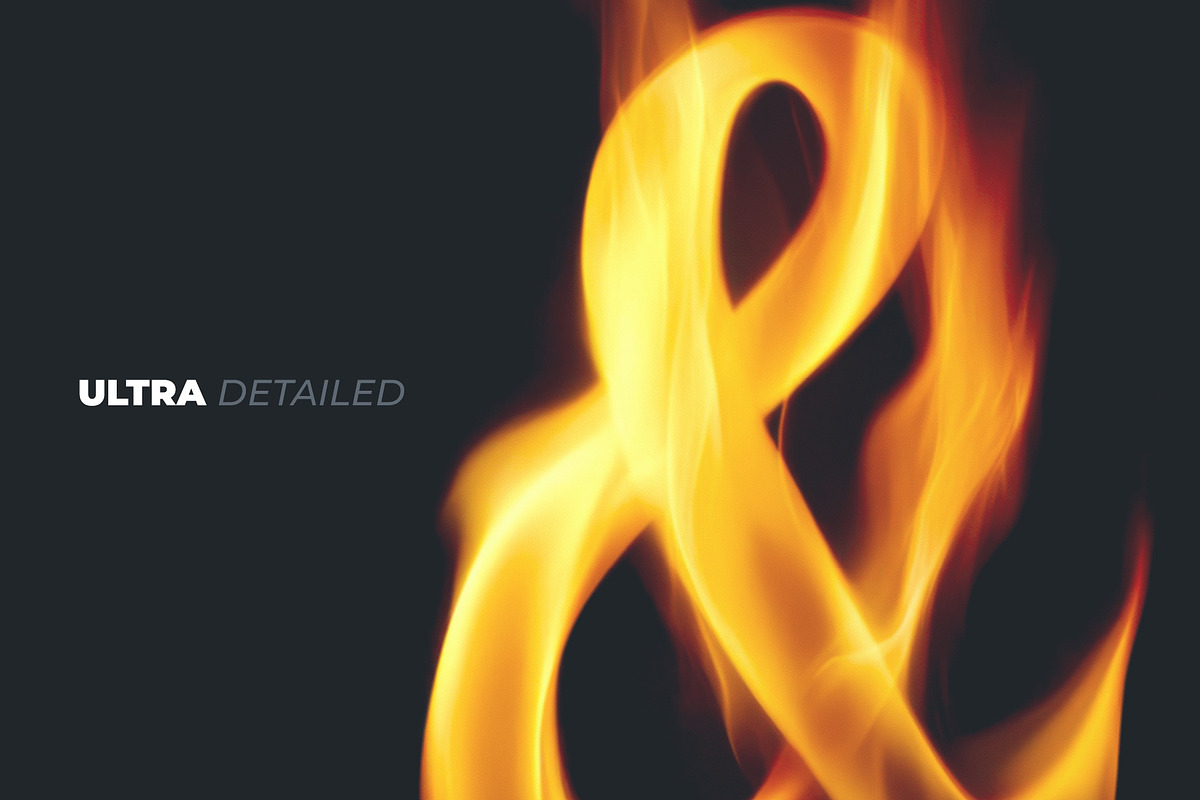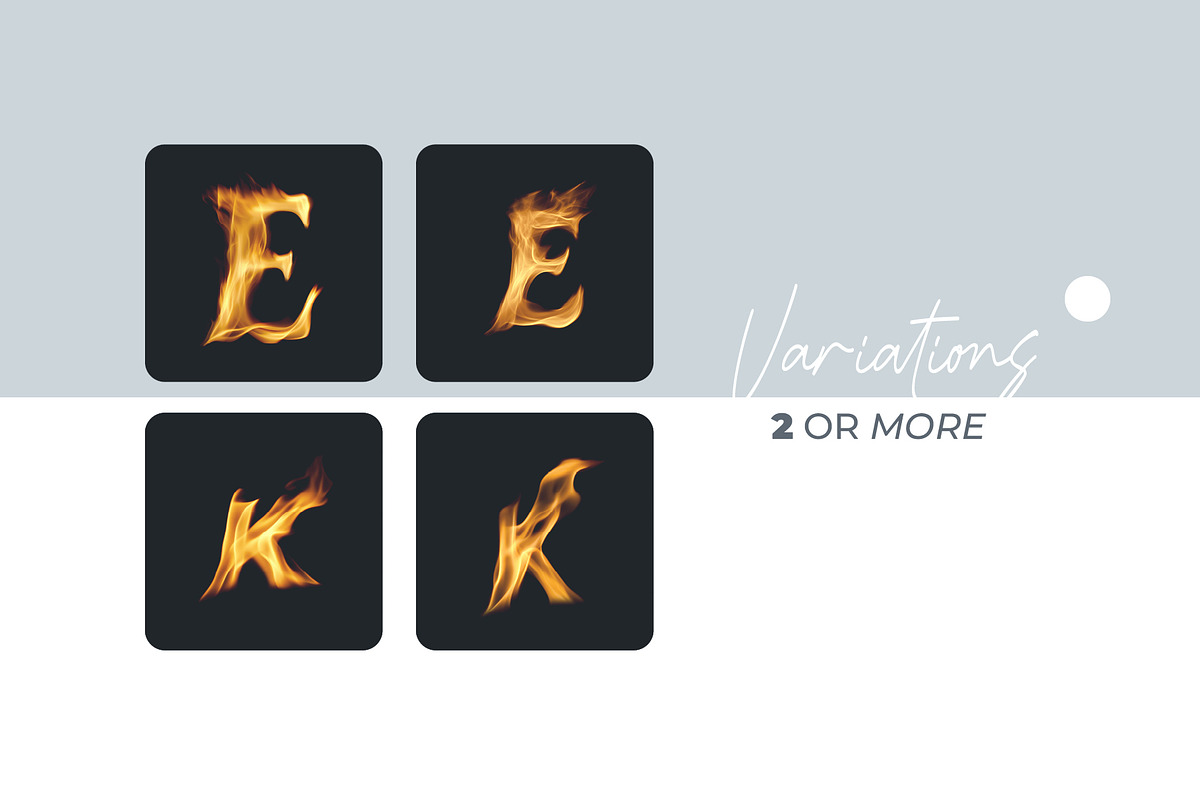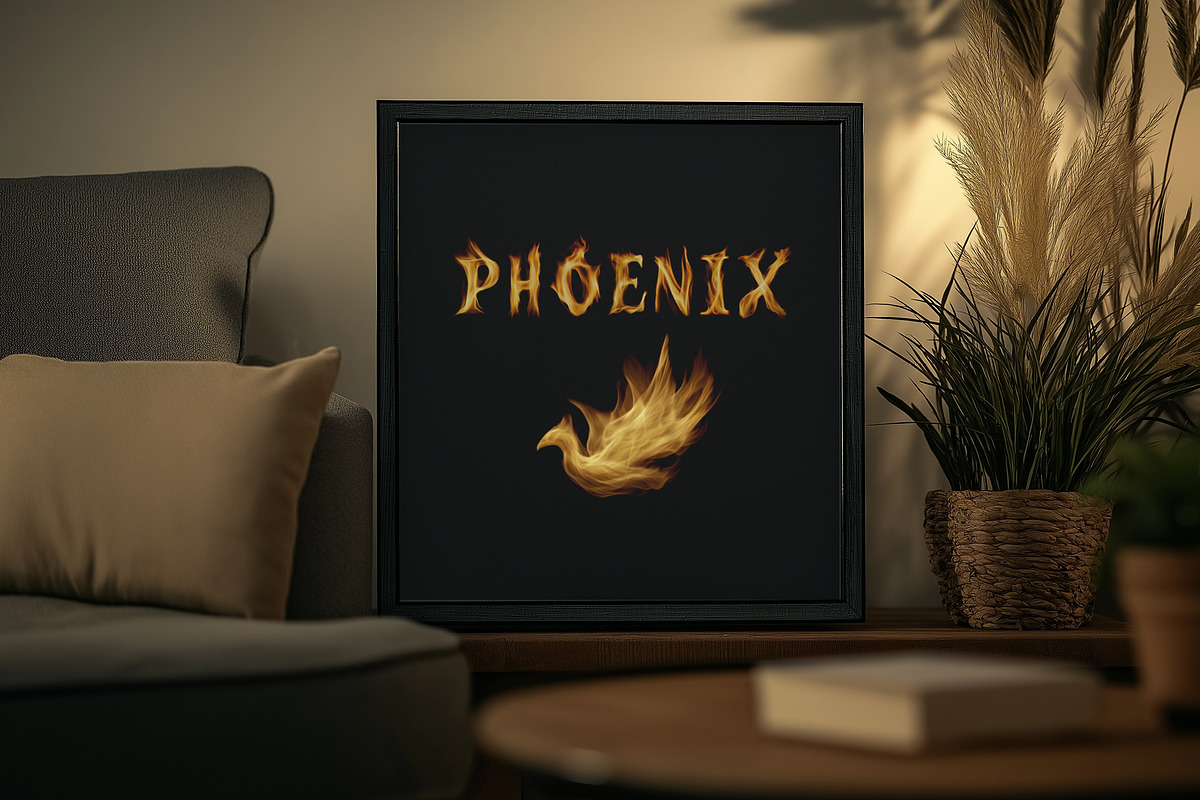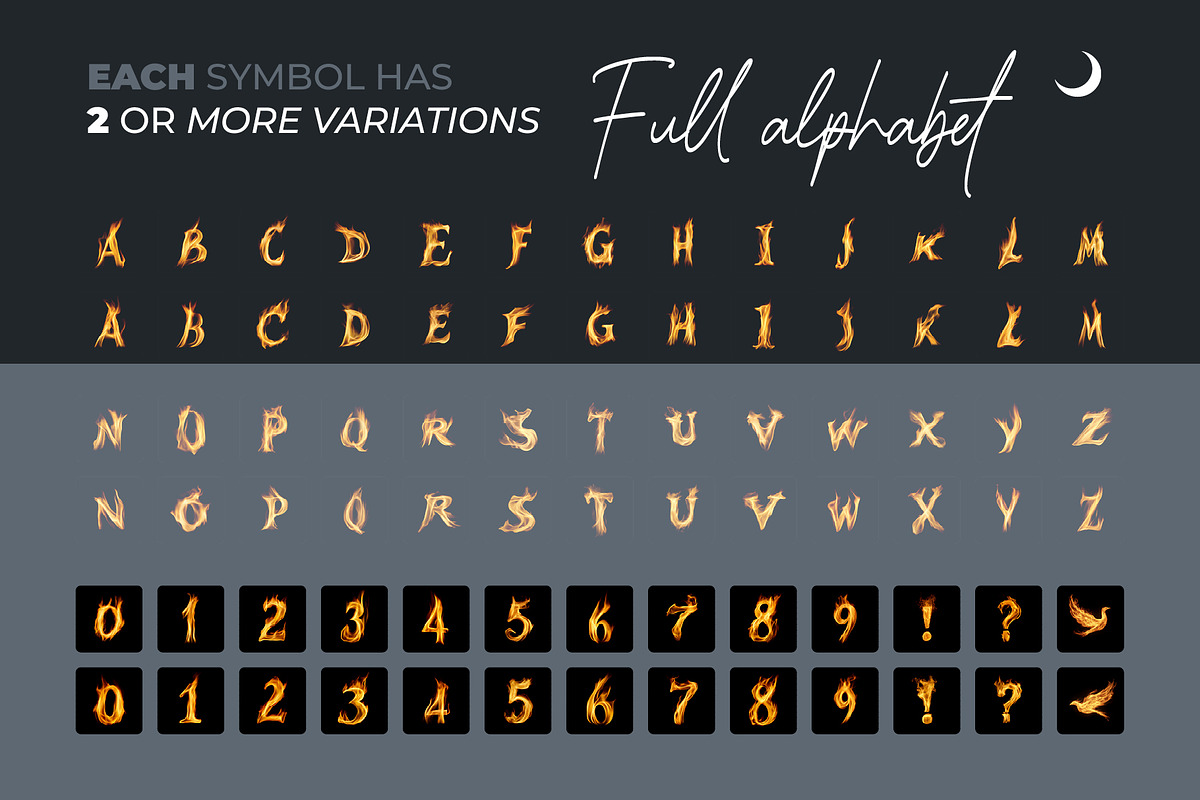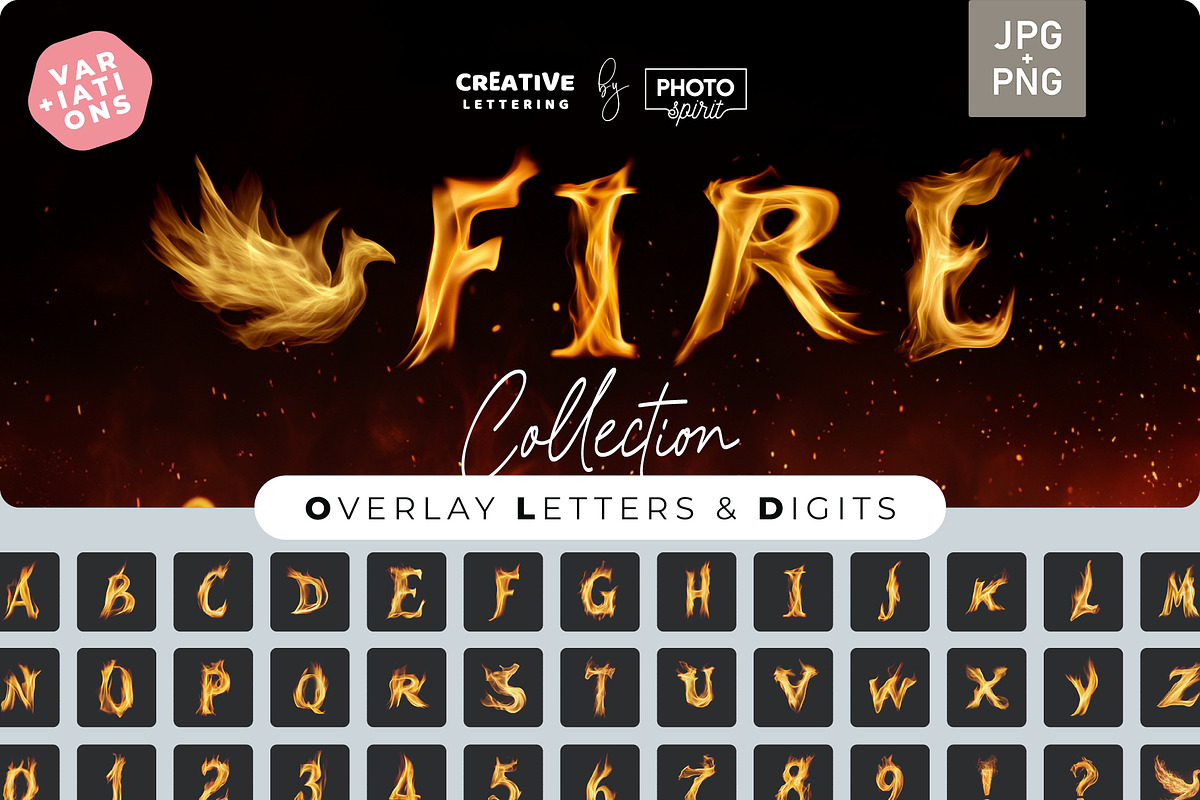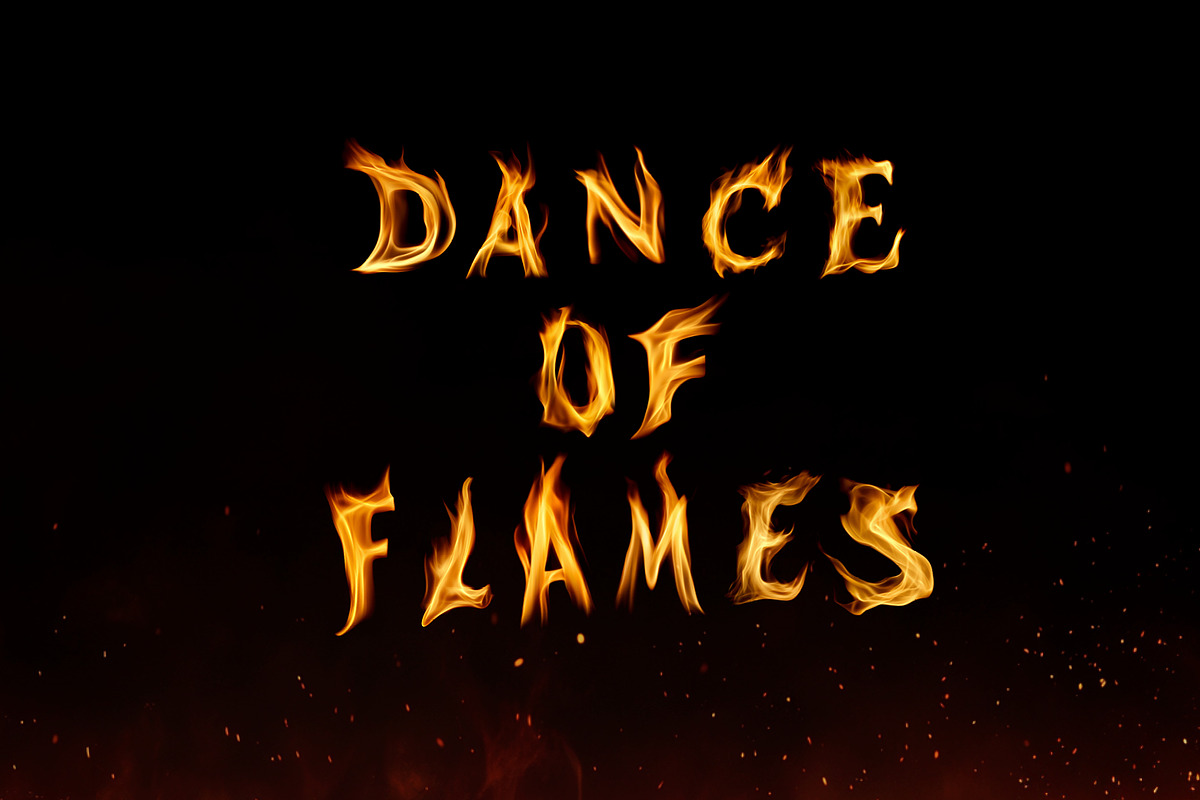
Fire Subtle Flame Letters Overlays
Ignite Your Designs with Fire Subtle Flame Letters Overlays
Bring the heat to your creative projects with Fire Subtle Flame Letters Overlays, a blazing collection of alphabet letters infused with soft, flickering fire effects. Designed to add warmth, intensity, and a touch of fiery elegance, these overlays seamlessly enhance any project with realistic glowing flames.
Perfect for branding, sports graphics, music covers, fantasy art, event promotions, and gaming visuals, this set adds a dynamic and powerful aesthetic. Each letter is carefully designed with subtle yet striking fire textures, making your typography appear as if it's glowing with real flames. 🔥 Key Features:
✅ Complete Alphabet & Symbols – Includes uppercase letters, numbers, and essential punctuation.
✅ Multiple Fire Variations – 2–5 unique flame styles per letter for creative diversity.
✅ Realistic Fire Effects – Soft, flowing flames with natural movement and glow.
Let Fire Subtle Flame Letters Overlays bring heat, passion, and energy to your designs! 🔥✨